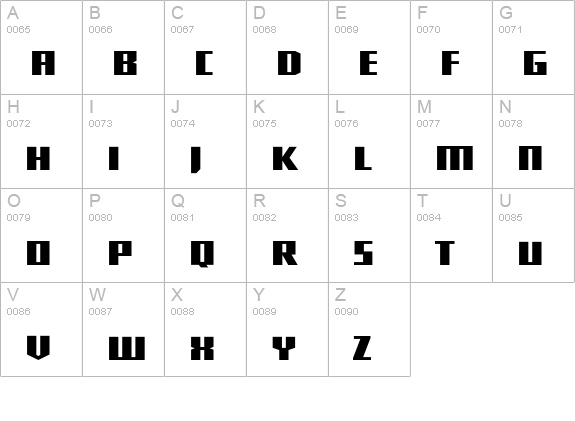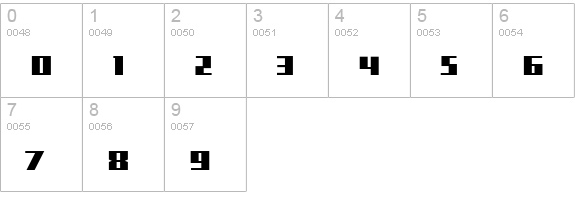
Shimano-SquareBlackNarrow Font Details
The Shimano-SquareBlackNarrow font is a visually striking and contemporary typeface that exudes a sense of sleekness and modernity. Its bold and narrow letterforms captivate the attention of readers, making it perfect for headlines, titles, and logos that demand a strong presence. This font boasts a unique square design, with sharp edges and clean lines that add a touch of sophistication to any design project. It brings a sense of professionalism and elegance to your work, making it ideal for branding, advertising, and editorial design. One of the most enticing aspects of the Shimano-SquareBlackNarrow font is that it is freely available to download at FontsMarket.com. This means that designers and creatives can easily access and implement this font in their projects without any financial constraints. Whether you are a professional designer or a hobbyist, this font provides an opportunity to enhance your creativity and make a lasting impression. The versatility of the Shimano-SquareBlackNarrow font is another noteworthy feature. It can seamlessly adapt to various design styles and themes, allowing for endless possibilities and creative exploration. From minimalistic and modern designs to bold and edgy layouts, this font effortlessly complements a wide range of visual concepts. Moreover, the Shimano-SquareBlackNarrow font offers excellent legibility, ensuring that your message is conveyed clearly and effectively. Its well-defined letterforms make it easy for readers to absorb information, whether it is in print or on digital platforms. This font's attention to detail and readability make it a trusted choice for creating impactful and memorable designs. In conclusion, the Shimano-SquareBlackNarrow font is a visually striking and versatile typeface that brings a sense of modernity, elegance, and professionalism to any design project. With its freely available download at FontsMarket.com, it offers designers and creatives the opportunity to enhance their work without any financial barriers. So why wait? Elevate your designs with the captivating Shimano-SquareBlackNarrow font today.